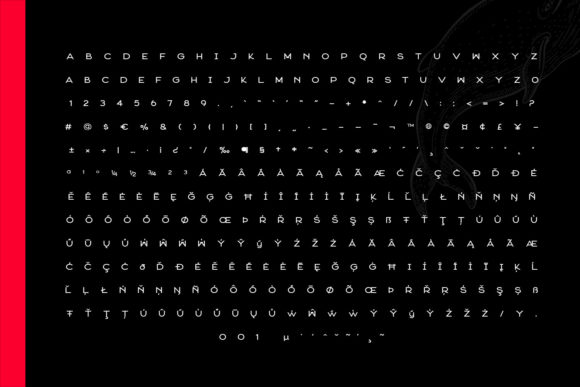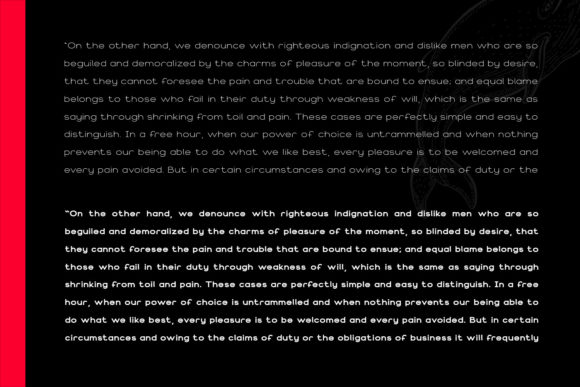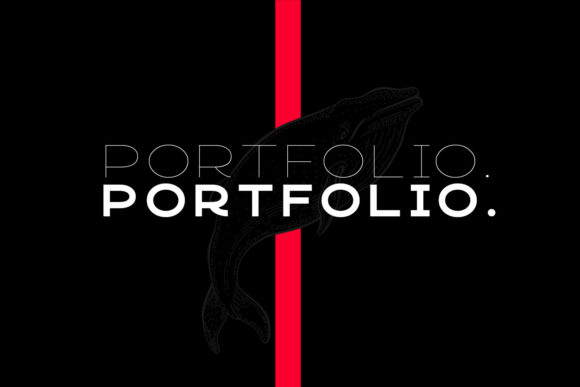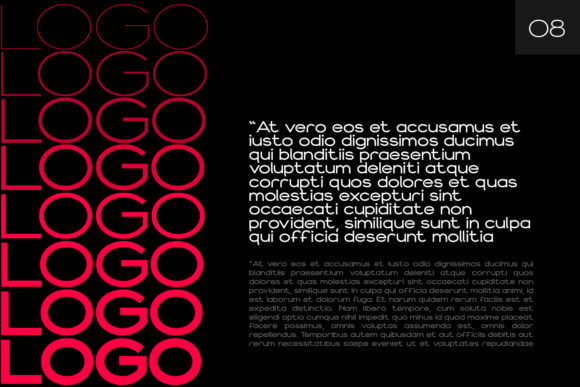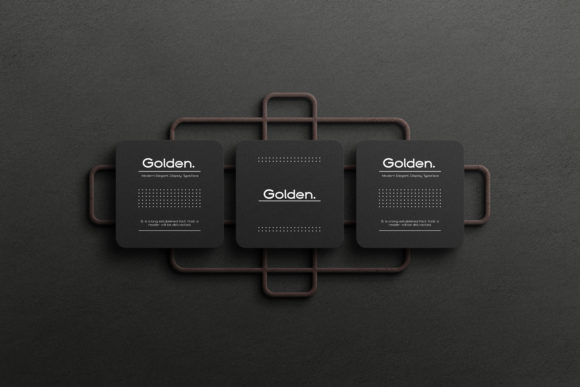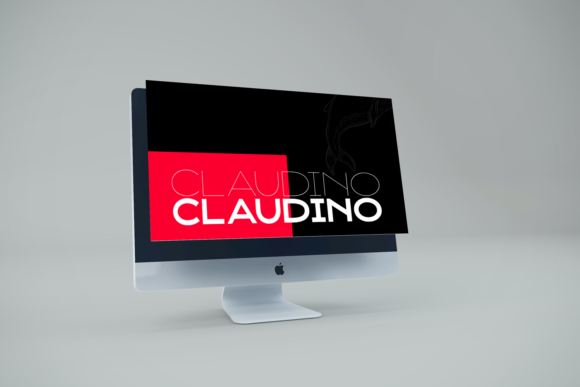
Introduction to Claudino Font
Remember that moment when you’re brainstorming for your next creative project, and you finally land on the perfect idea? The excitement is palpable, but it’s the design that often makes or breaks the entire concept. This is where the Claudino Font comes in – a modern sans serif font that adds a sleek and sophisticated touch to your beautiful crafty ideas.
For designers, having a reliable and high-quality design resource is invaluable. The Claudino Font delivers just that, with its dependable and uncompromising style, controlled letterforms, and modern touches. Its unique blend of strong lines and smooth curves makes it perfect for headlines, big text, branding, logotypes, and display usage. With the Claudino Font, you can add a professional and authoritative touch to your designs, making them stand out on a transparent background.
Key Features of Claudino Font
- Designed with a modern and sleek look, making it perfect for contemporary design projects.
Honest Review: Claudino Font
As a designer, I’m always on the lookout for high-quality design resources that can elevate my creative projects. Claudino Font has been a game-changer for me, and I’m excited to share my honest review.
- Clean and minimalist design aesthetic that works perfectly for modern designs
- High-quality typography that’s perfect for body text and headings
I’ve used Claudino Font for several projects, and I’m consistently impressed with its performance. The font is versatile, and its clean design makes it perfect for a wide range of creative projects.
- May not be suitable for projects that require bold or dramatic typography
Overall, I’m thoroughly impressed with Claudino Font. Its high quality, clean design, and transparent background make it a valuable addition to any designer’s toolkit. If you’re looking for a reliable font for your next creative project, I highly recommend giving Claudino Font a try.
Claudino Font
Tips for Getting the Most Out of Claudino Font
Experiment with different font sizes and styles to create a visually appealing design. Use the transparent background to create a seamless design that blends with other elements.
The Claudino Font is ideal for use in brochures, flyers, posters, and other marketing materials. It’s also suitable for use in logos, branding materials, and other design projects where a high-quality font is required.